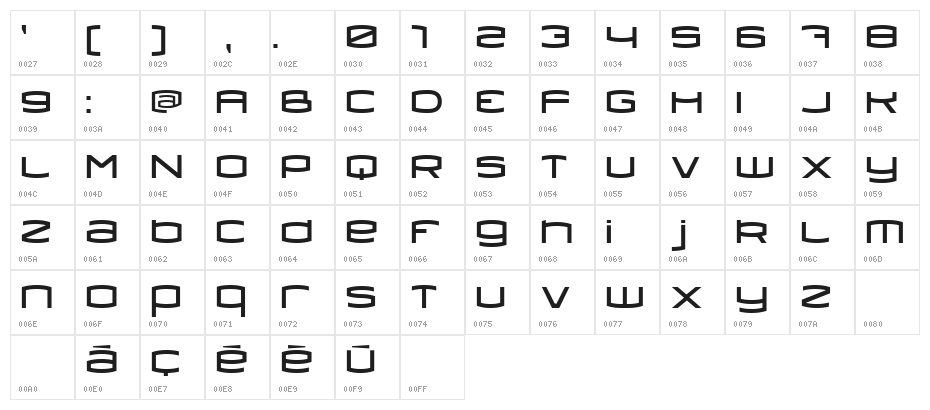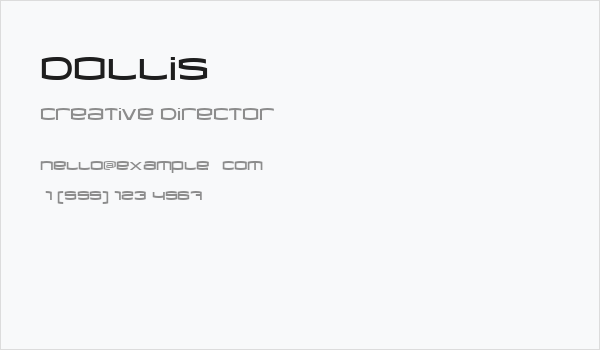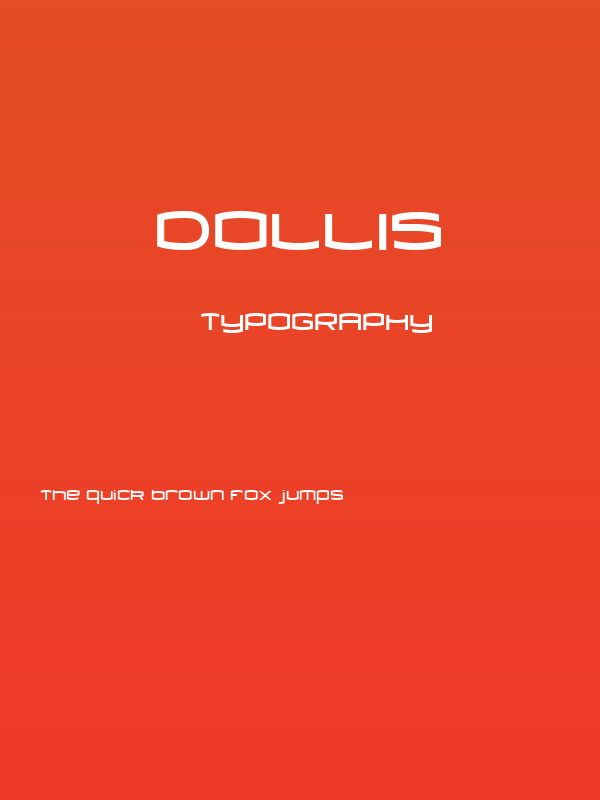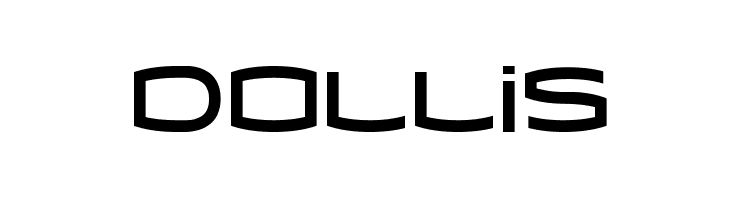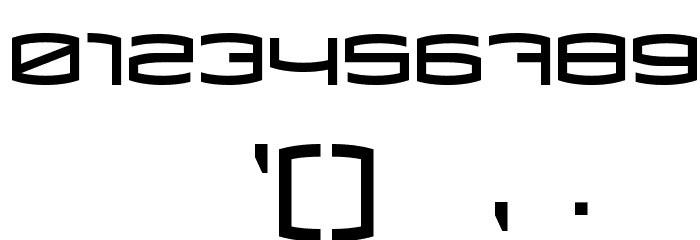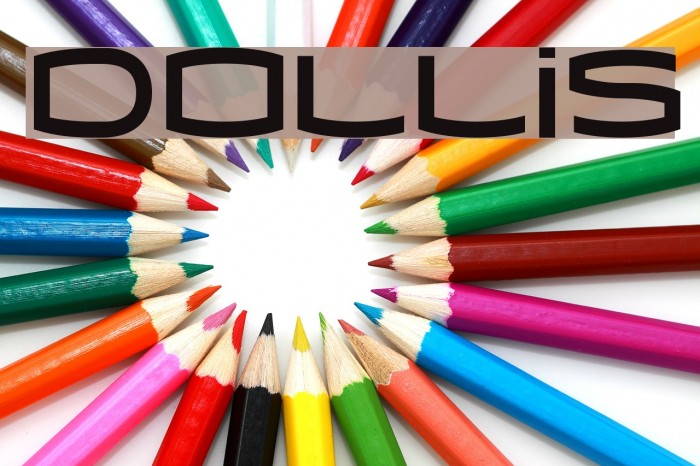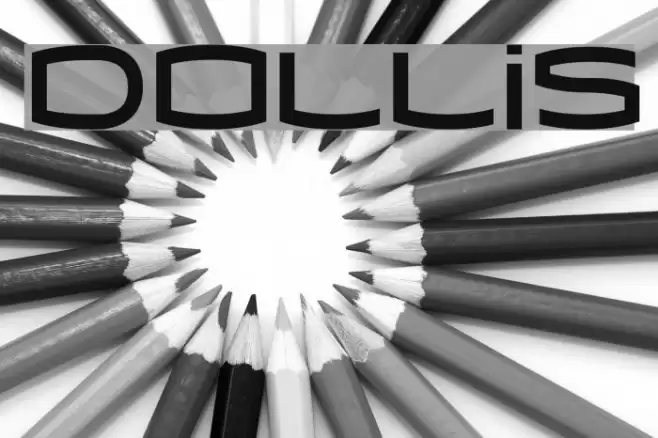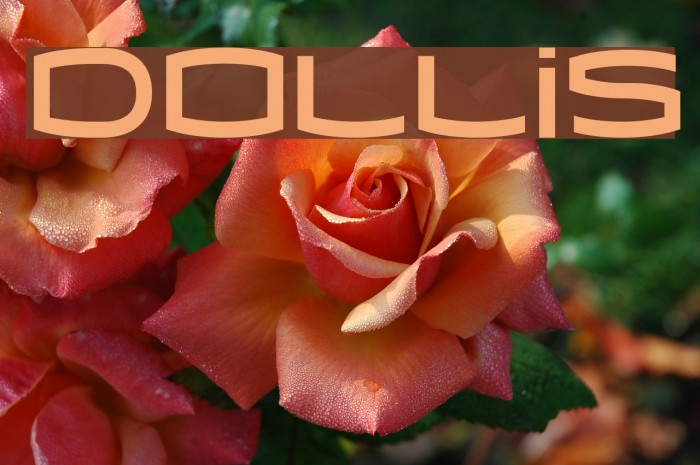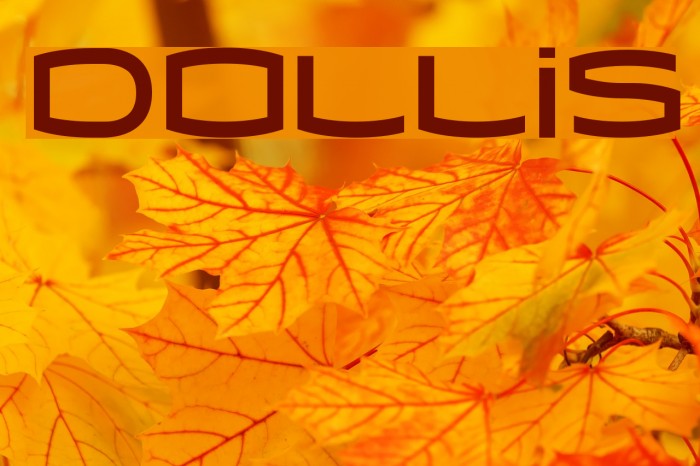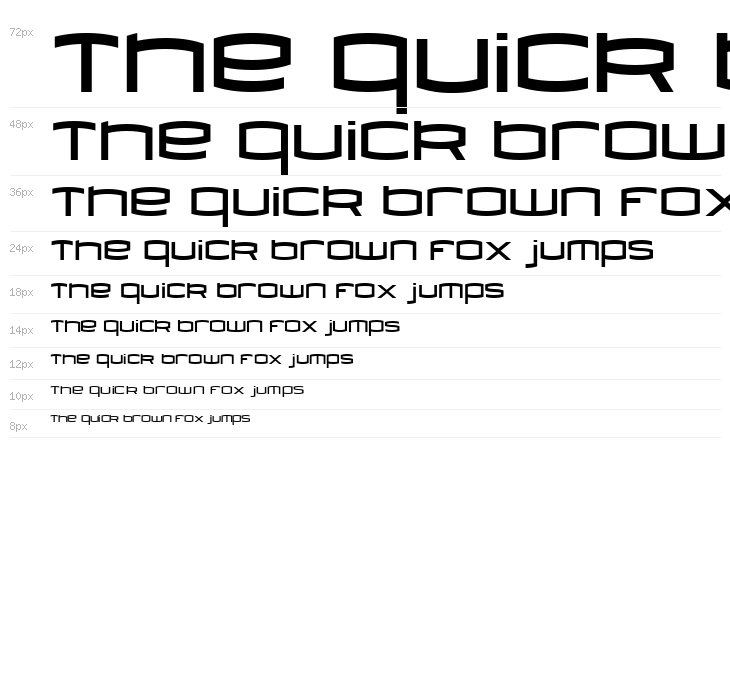
Dollis Font
| Caso d'uso | Headlines, Logos, Digital Interfaces |
| Progetti proposti | Ideal for technology branding, sci-fi themed designs, and modern digital interfaces. |